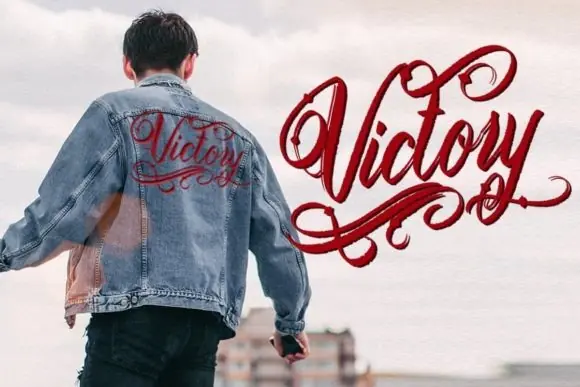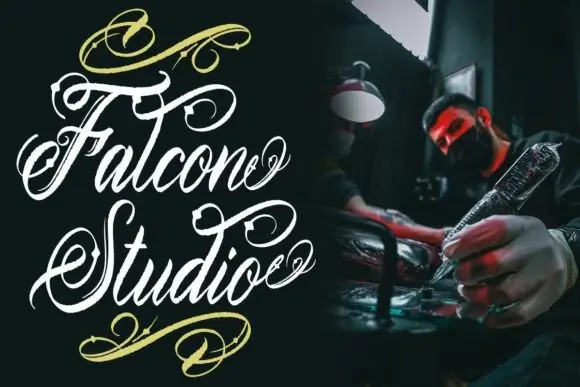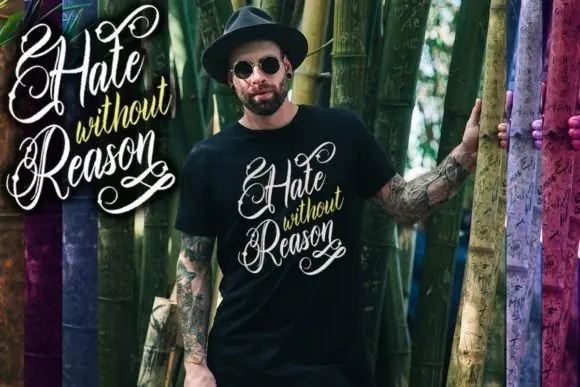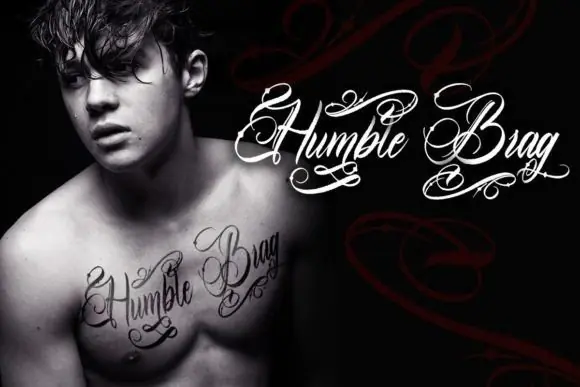
Create stylish, bold, and professional tattoo-inspired designs with Eighteen Tattoo Font, a cool and refined blackletter font made for projects that need a strong gothic, vintage, and tattoo-style appearance.
This font is perfect for tattoo designs, logos, apparel graphics, t-shirt prints, hoodie designs, posters, flyers, stickers, labels, product packaging, album covers, barbershop branding, motorcycle-themed designs, streetwear artwork, wall art, quote designs, and bold social media graphics.
Eighteen Tattoo Font combines traditional blackletter character with a polished and refined look, making it useful for both classic tattoo-style artwork and modern branding projects. Its strong letterforms help your typography stand out confidently, especially in display text, merchandise designs, promotional graphics, and statement lettering.
Eighteen Tattoo Font is a strong choice for designers, tattoo artists, apparel sellers, crafters, and digital product creators who want to create bold, polished, and memorable designs with a refined blackletter tattoo look.